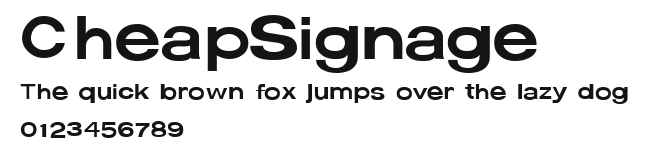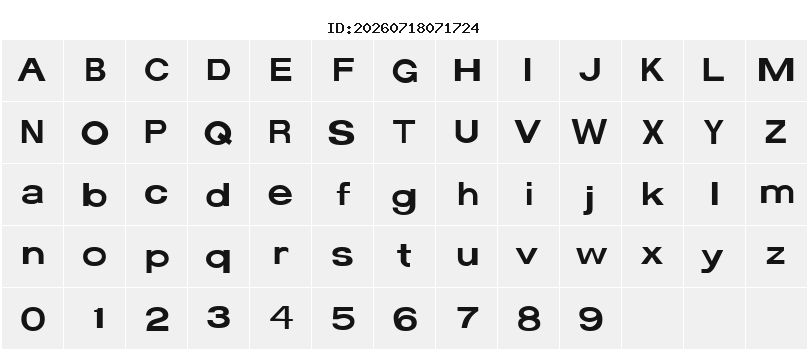
• Font Name: CheapSignage
• Full Font Name: CheapSignage Standard
About CheapSignage.ttf
CheapSignage.ttf is a modern, elegant sans-serif font designed for ultimate readability and visual harmony. Perfect for branding, headlines, web design, and print materials.